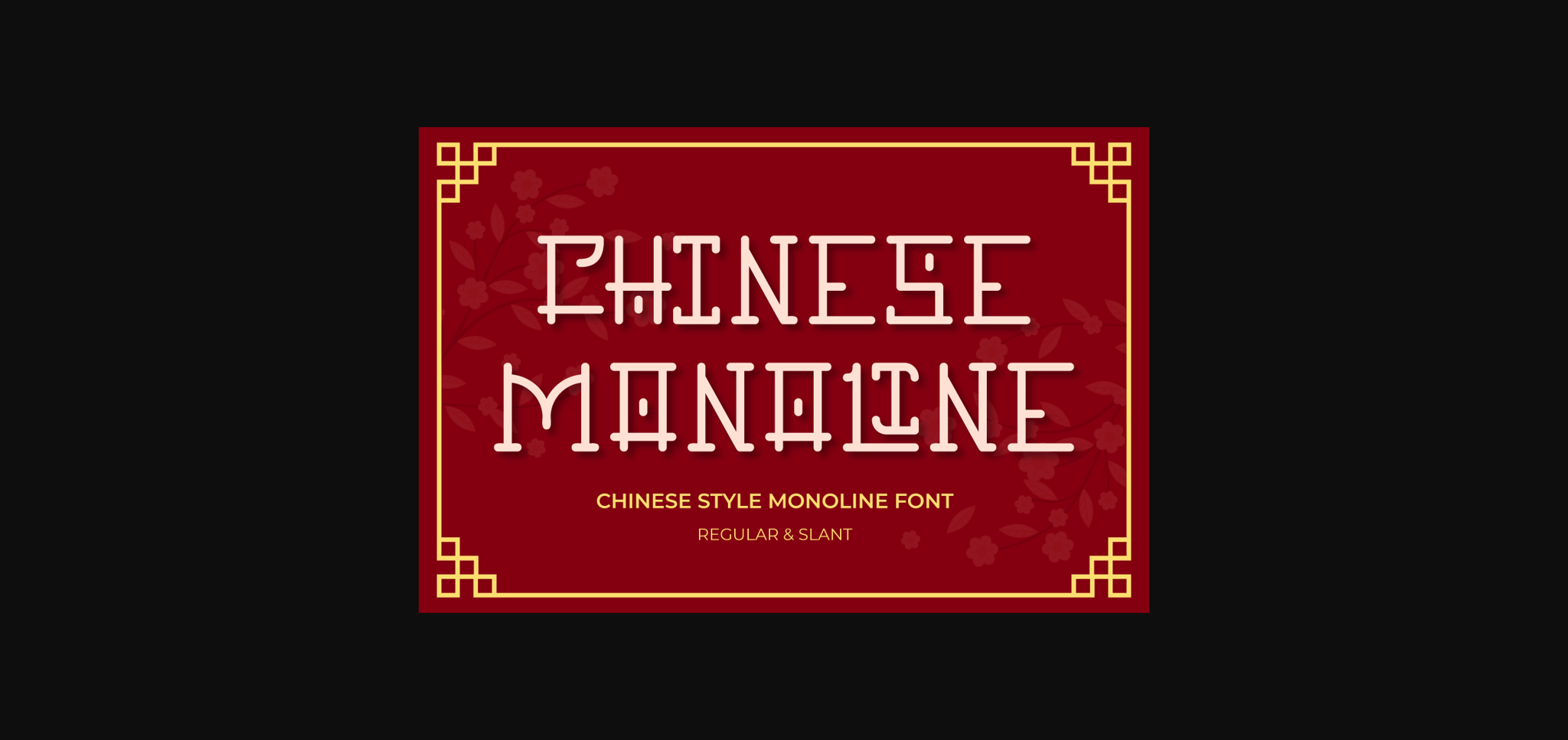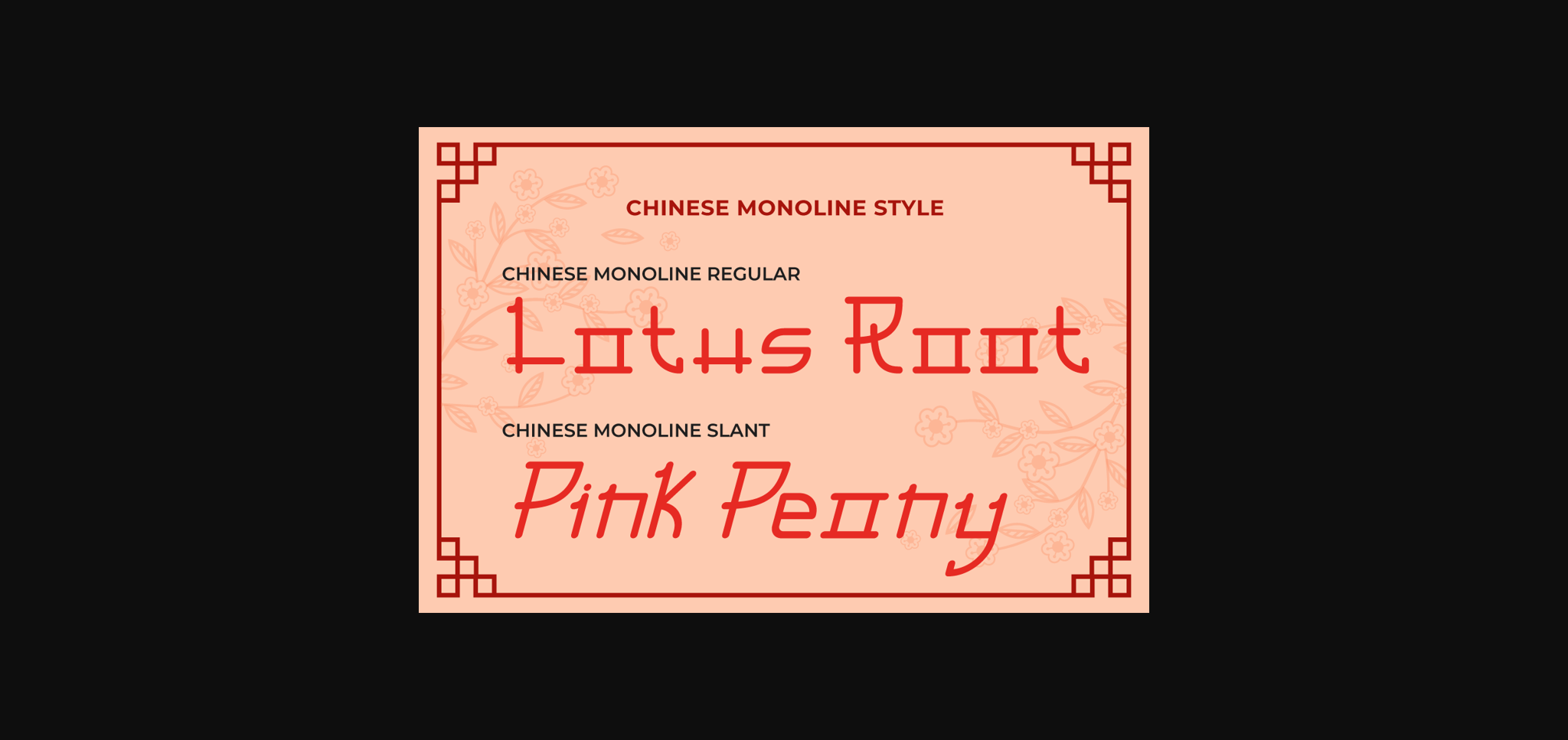
About Chinese Monoline Font
Chinese Monoline is a Chinese-style sans serif font, with a modern twist. Chinese Monoline is perfect for creating Asian-themed branding, promotional materials, apparel, cards, and more!